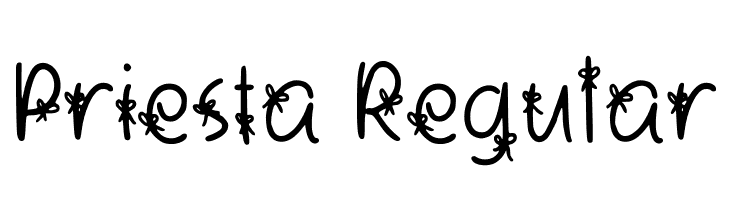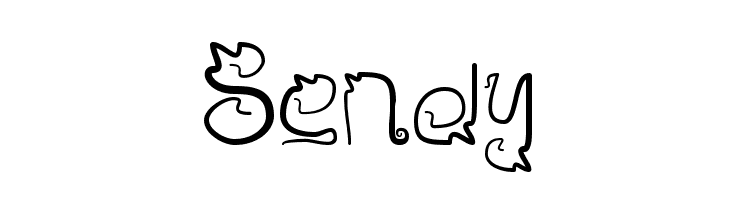
A bold, playful font with rounded edges and a whimsical style.
A bold, flowing script font with expressive, interconnected strokes.
A whimsical, decorative font with cartoon-like illustrations for each character.
An elegant, flowing script font with a handwritten style.
A dynamic, brush-style font with a lively and artistic flair.
A bold, geometric font with an industrial and robust design.
A bold, vintage-inspired serif font with rounded edges and a compact style.